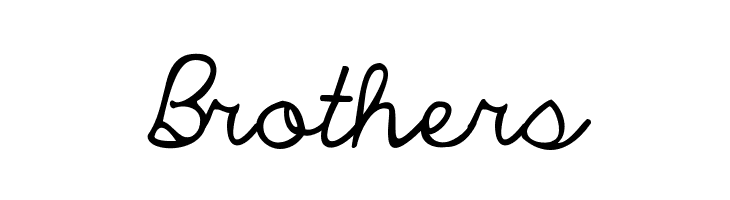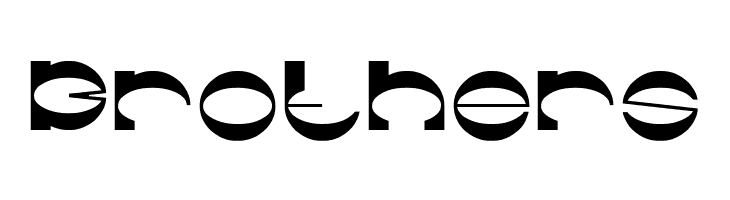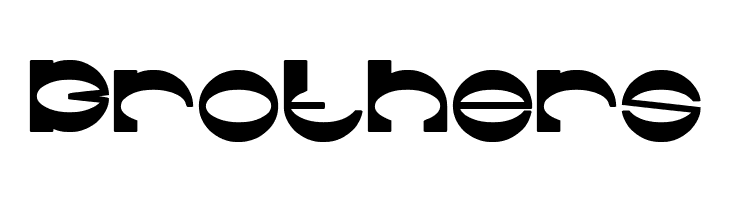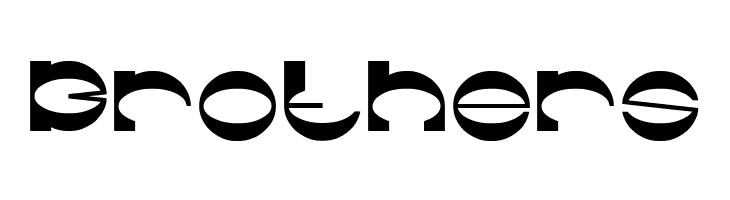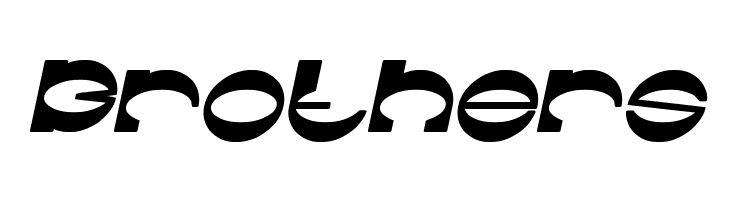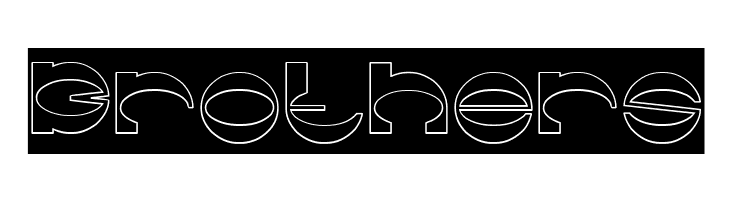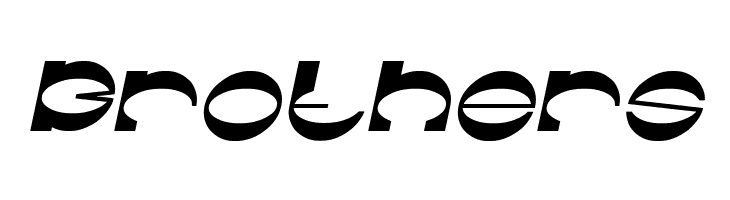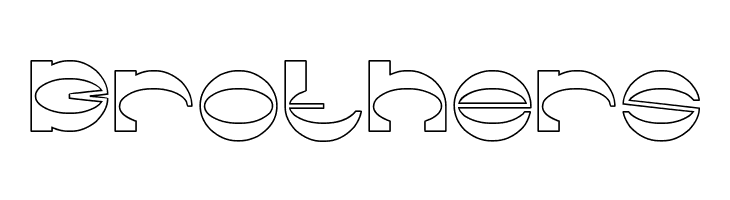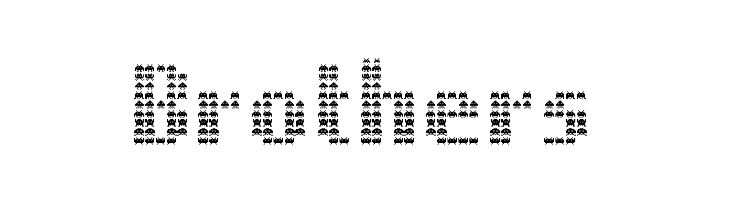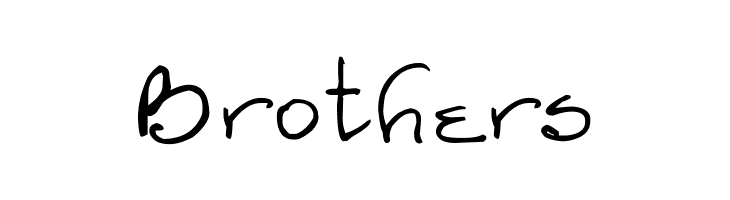
A bold, geometric font with sharp angles and a modern aesthetic.
A playful, handwritten font with bold, rounded strokes and a casual slant.
A playful, handwritten font with fluid strokes and a casual vibe.
A bold, geometric font with a modern, tech-inspired design.
A distressed, grungy font with irregular edges and a bold, artistic style.
A decorative, distressed font with a grunge-like, chaotic appearance.
A bold, italic, distressed font with a rugged, grunge-like appearance.
A distressed, italic font with a grunge style and irregular, textured characters.
A bold, decorative font with a vintage, textured outline and shadow effect.
An elegant and flowing script font with intricate decorative letterforms.
A bold, expressive handwritten font with dynamic strokes.
A bold, futuristic font with geometric and industrial design elements.
A bold, italicized font with a futuristic and mechanical design.
A bold, futuristic italic font with sharp angles and geometric shapes.
A futuristic, hollow font with geometric and angular elements.
A bold, geometric hollow font with a futuristic and industrial aesthetic.
A bold, futuristic font with geometric shapes and high contrast.
A bold, distressed font with a vintage, rugged appearance.
A bold, dynamic script font with a modern, brush-like style.
A futuristic, geometric font with rounded corners and uniform stroke width.
A playful, hand-drawn font with rounded, whimsical letterforms.
A bold, geometric font with a modern and edgy aesthetic.
A playful, modular font with rounded terminals and a digital-inspired design.
A bold, playful font with decorative, rounded edges.
A playful, flowing script font with a natural handwritten style.